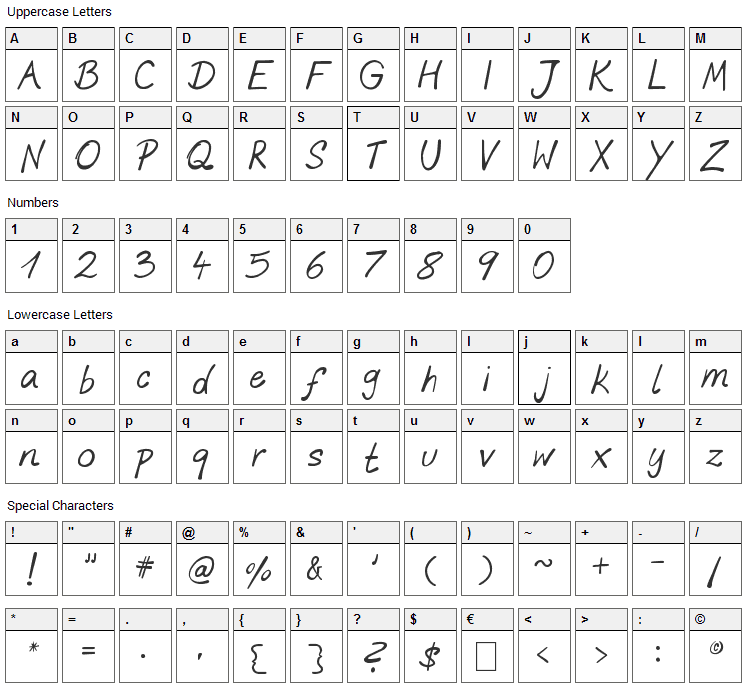
Phitradesign INK Font
Font Name:Phitradesign INK
Developer:Phitradesign
Category:Script > Handwritten
This is my second font, which I put a lot of afford in. However I want this font to be free for private as well as for commercial Use. It contains over 200 Characters with almost all special characters. It has a nice and realistic handwritten Style, in a old fashioned way.